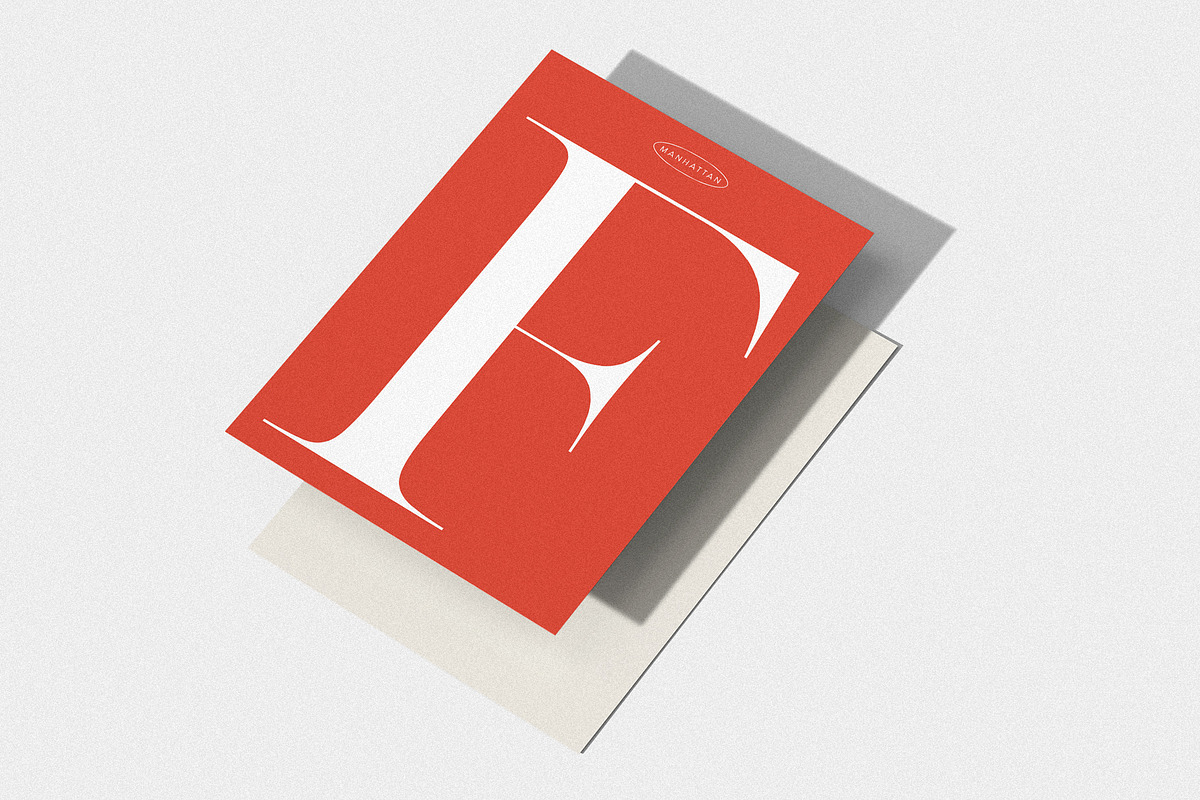
Manhattan is a minimalistic and classy all-caps serif typeface features sleek lines and thin serifs. Perfect for gorgeous logos & titles, Manhattan will pair beautifully with many fonts and work well with whatever project you’re working on. Perfect for premium branding, magazine layouts, wedding suites, luxury packaging, and social media content that needs a romantic yet refined touch.